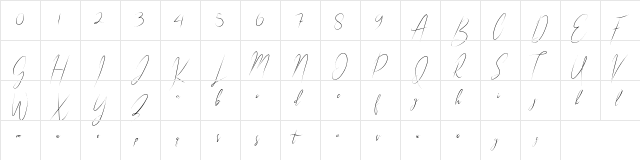
Indonesia Island Regular
| Designer | aminmario studio |
Design Context for Indonesia Island Typeface
Indonesia Island is a composed and adaptable typeface that performs quietly and consistently across a wide range of design contexts.